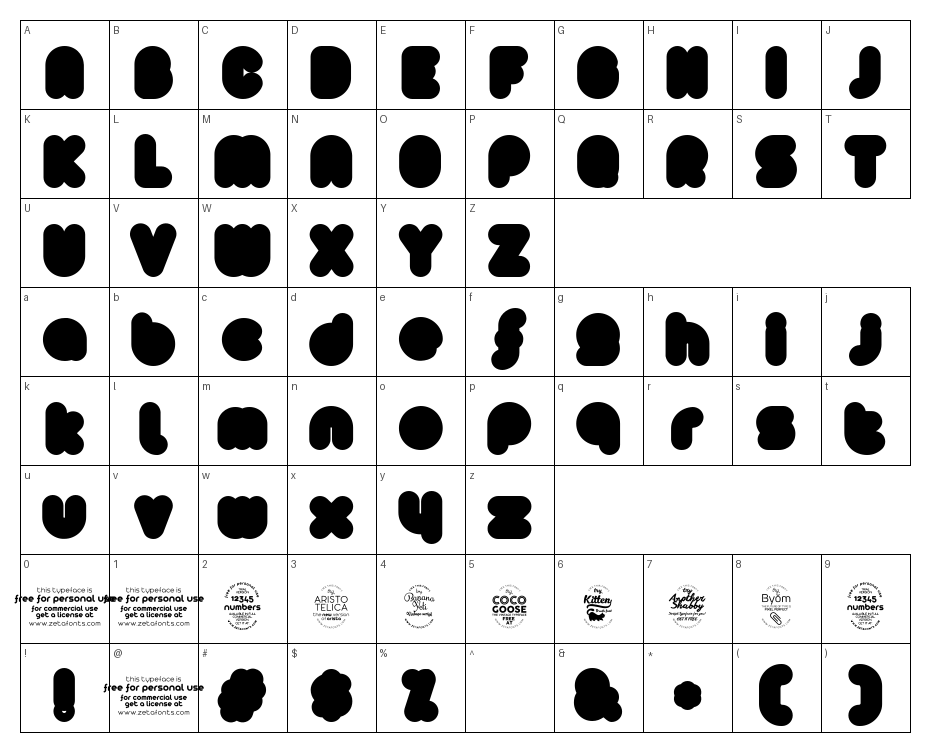
Arista or Arista [z] is the first version of Arista typeface family. It's a soft round font, perfect for 2.0 logos and contemporary headlines. It includes a light version and an extrafilled version for 2.0 style fat borders. Arista [z] has been developed further into the Arista 2.0 family, that comprises six weights and an alternate version. If you like Arista [z] check out Arista 2.0.
Nombre de la fuente: [z] Arista
Nombre del diseñador: Zetafonts